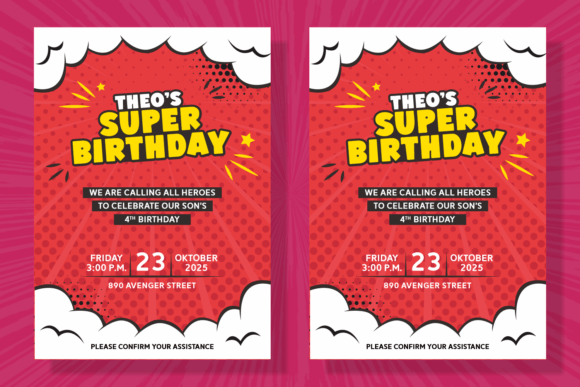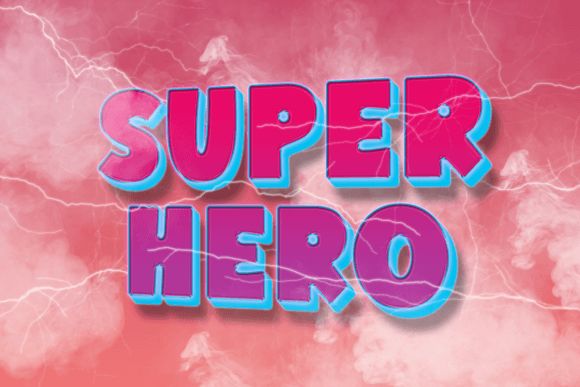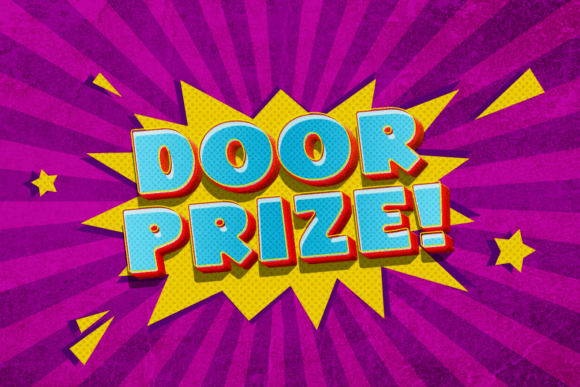
Introducing Empty Power Font: The Ultimate Display Font for Bold Typography
Are you looking for a font that can add a touch of boldness and personality to your design projects? Look no further than Empty Power Font, a thick and impressive display font that’s perfect for making a statement. This chunky, cartoon-inspired typeface is designed to grab attention and leave a lasting impression, making it ideal for a wide range of projects, from posters and advertising materials to headlines, titles, book covers, and banners.
The Characteristics of Empty Power Font
Empty Power Font is a unique and eye-catching typeface that’s characterized by its thick, chunky lines and cartoon-inspired aesthetic. The font’s bold and sturdy design makes it perfect for use in display settings, such as headlines, titles, and promotional materials. Its playful and energetic vibe also makes it well-suited for projects that require a touch of whimsy and fun.
What Makes Empty Power Font So Versatile?
One of the things that sets Empty Power Font apart from other display fonts is its versatility. This font can be used in a wide range of design projects, from:
- Posters: Create eye-catching posters that grab attention and communicate your message in a bold and impactful way.
- Advertising materials: Use Empty Power Font to create ads that stand out from the crowd and leave a lasting impression on your target audience.
- Headlines and titles: Add a touch of personality and flair to your headlines and titles with this unique and eye-catching font.
- Book covers: Create a bold and eye-catching book cover that showcases the tone and personality of your book.
- Banners: Use Empty Power Font to create banners that grab attention and communicate your message in a clear and concise way.
Why Designers and Crafters Love Empty Power Font
Designers and crafters love Empty Power Font for a variety of reasons, including:
- Ease of use: This font is easy to read and use, even in large sizes.
- High-impact design: The font’s bold and chunky design makes it perfect for creating high-impact designs that grab attention.
- Flexibility: Empty Power Font can be used in a wide range of design projects, from digital designs to print materials.
- Uniqueness: This font has a unique and eye-catching aesthetic that’s sure to set your designs apart from the crowd.
Tips for Using Empty Power Font Effectively
To get the most out of Empty Power Font, here are a few tips to keep in mind:
- Use it sparingly: Because of its bold and eye-catching design, it’s best to use Empty Power Font sparingly to avoid overwhelming your design.
- Pair it with complementary fonts: Pair Empty Power Font with complementary fonts to create visual interest and add depth to your design.
- Experiment with colors: Don’t be afraid to experiment with different colors and textures to add an extra layer of interest to your design.
Empty Power Font is a powerful and eye-catching display font that’s perfect for designers and crafters who want to add a touch of boldness and personality to their design projects. With its chunky, cartoon-inspired design and high-impact aesthetic, this font is sure to grab attention and leave a lasting impression. Whether you’re working on a poster, advertising materials, headlines, titles, book covers, or banners, Empty Power Font is a versatile and effective choice that’s sure to take your designs to the next level.
Get Ready to Make a Statement with Empty Power Font